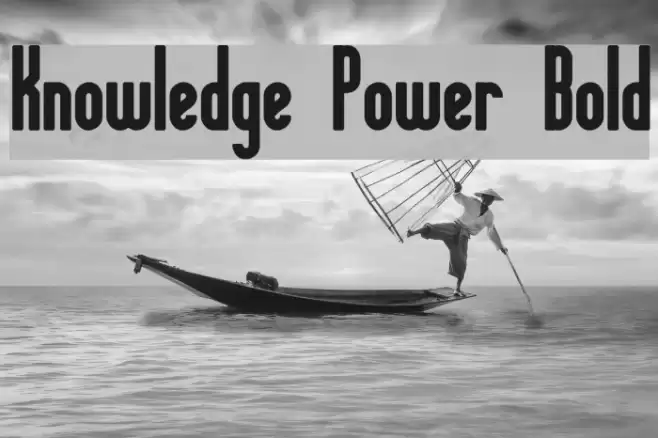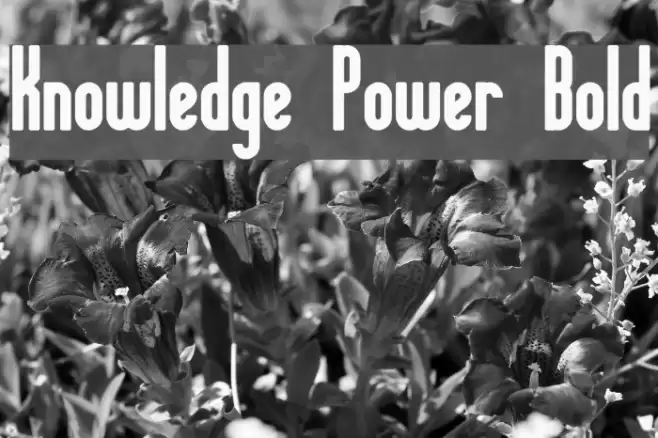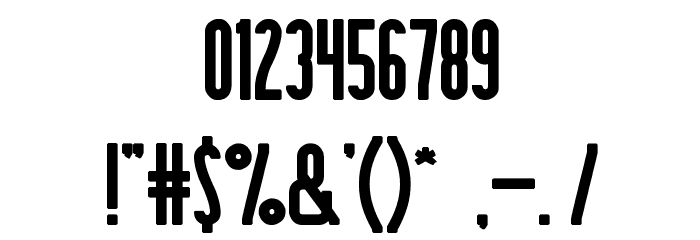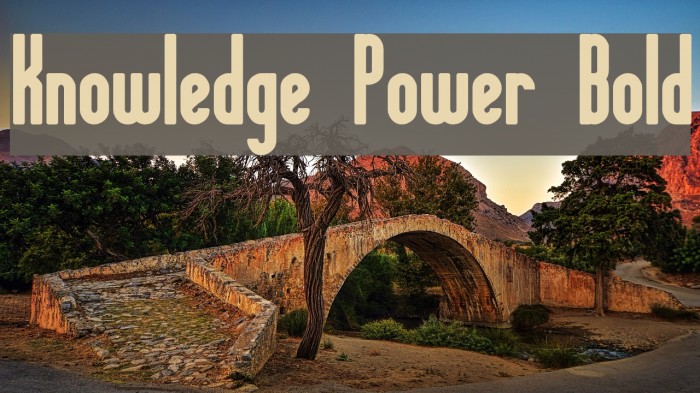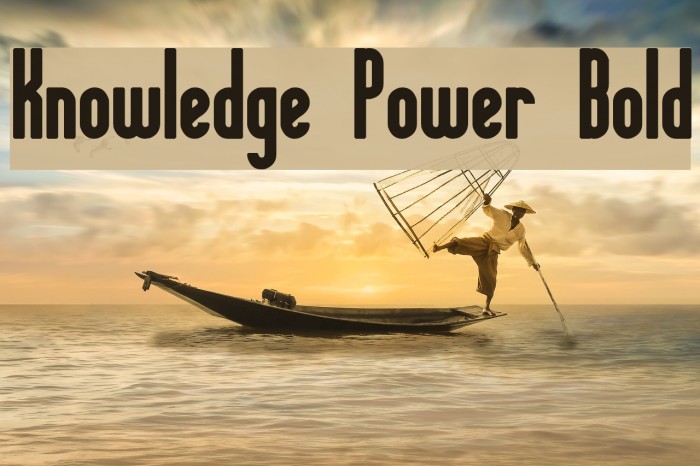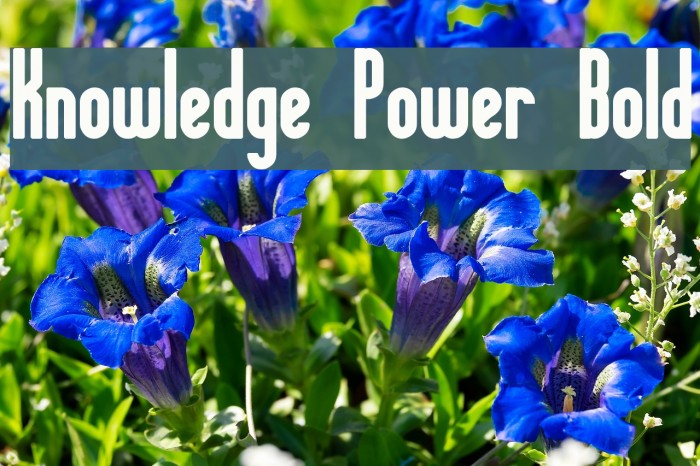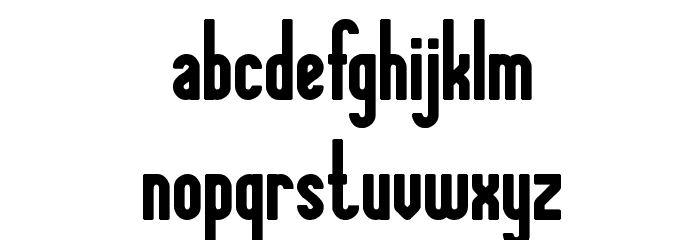
Knowledge Power Bold Font
Knowledge Power Bold Description
This font features a bold and impactful design with a strong presence. The characters are tall and slightly condensed, giving a sense of power and authority. The strokes are consistent in width, providing a uniform appearance across all letters. The uppercase letters are particularly striking, with a geometric influence that adds a modern touch. The lowercase letters maintain the same boldness, ensuring readability and coherence. Numbers and special characters are designed to match the overall style, making this font versatile for various applications.
A bold, modern font with a strong, geometric presence from Uncategorized fonts.
- Proposed Projects: Ideal for headlines, posters, branding, and any project requiring a bold statement.